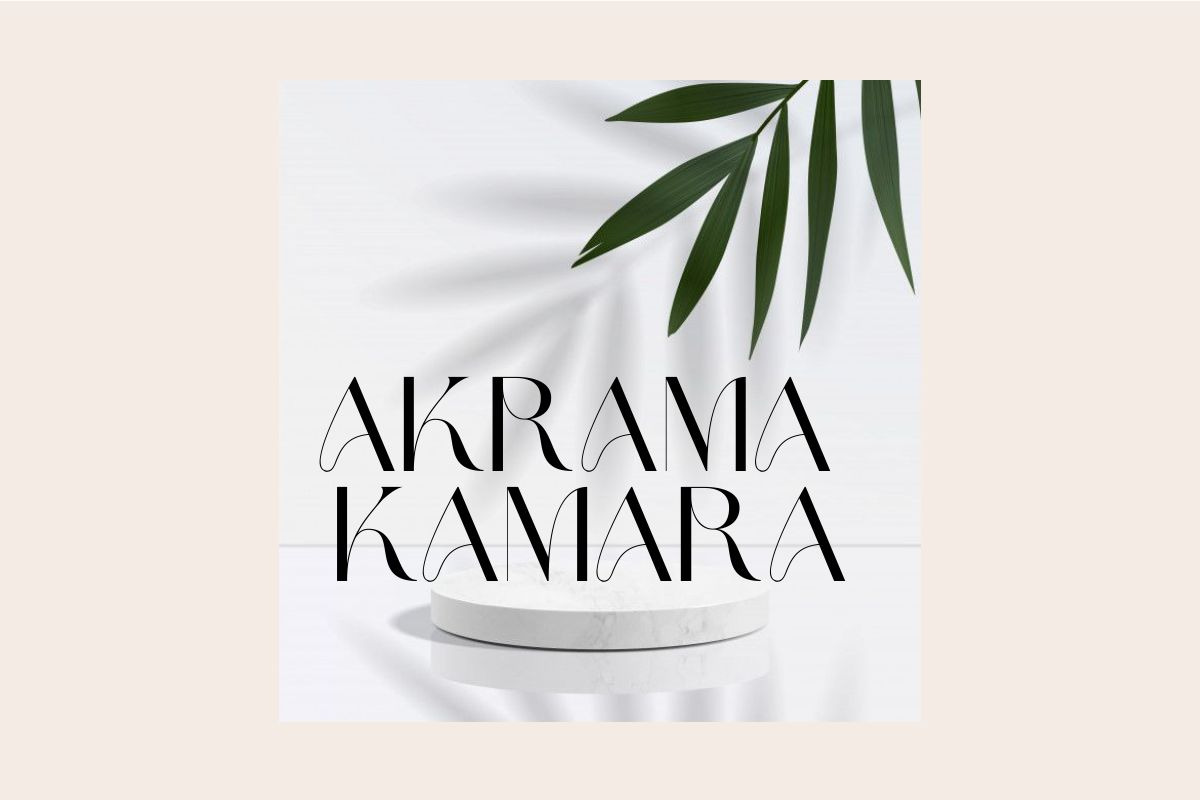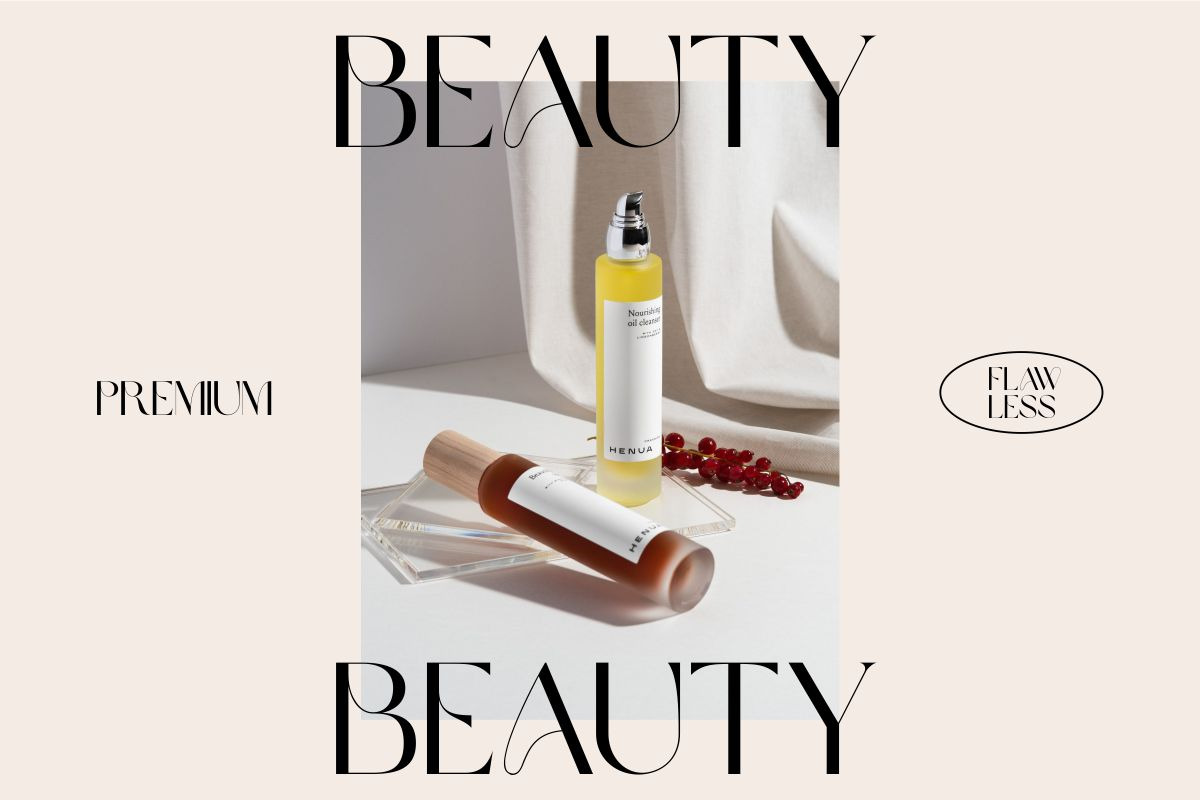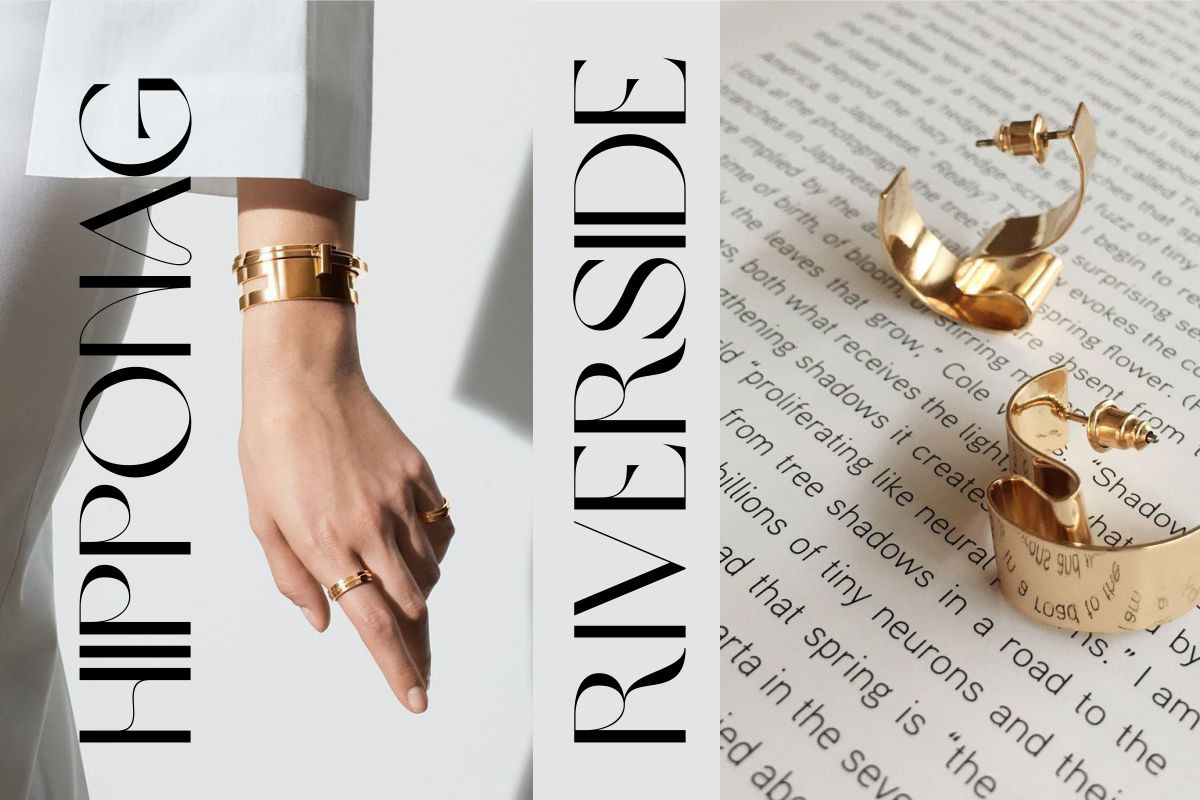
Brown Sugar include uppercase letters, numerals, a large range of punctuation. Serif font with a modern stylish style. Created for posters, web design, branding, illustrations, badges and some other works.